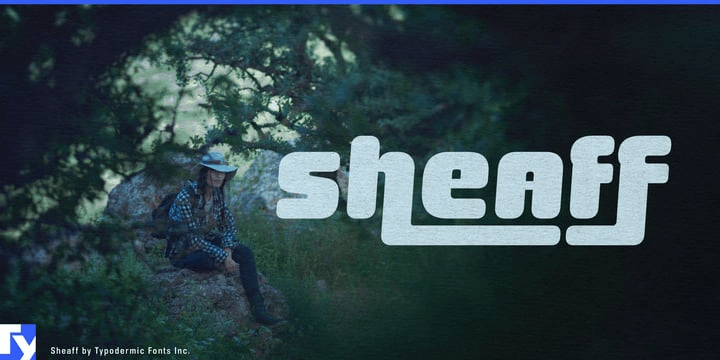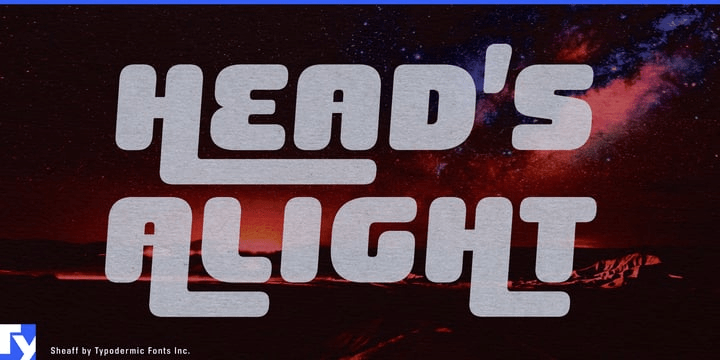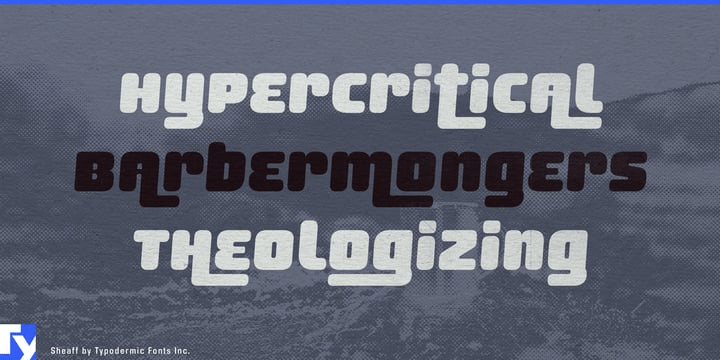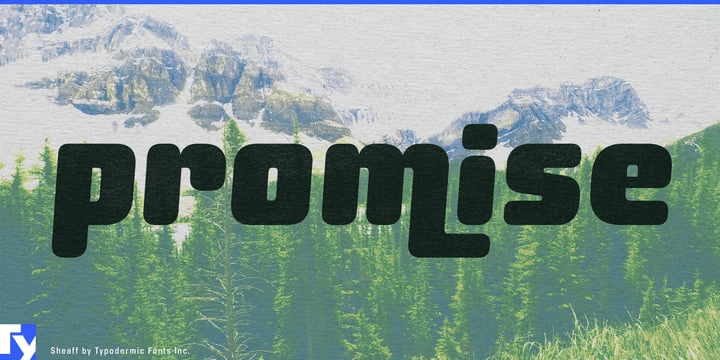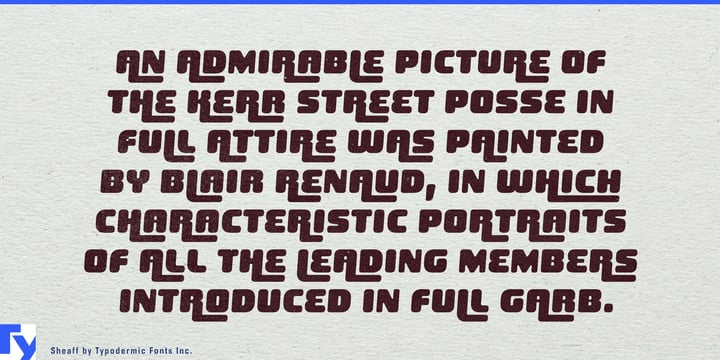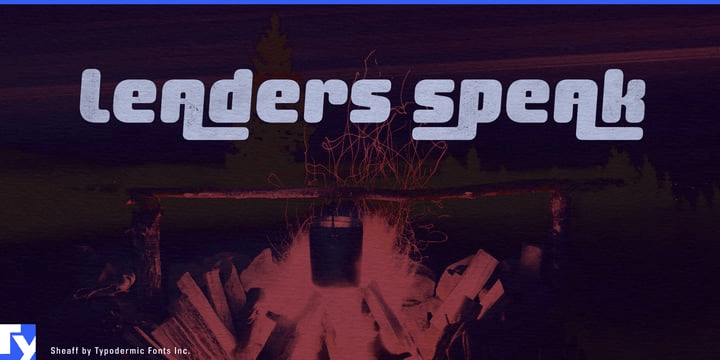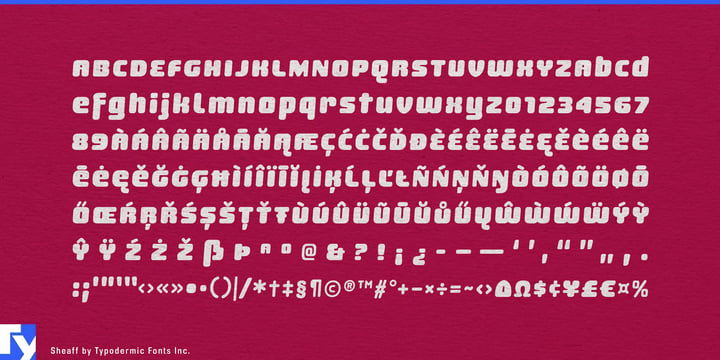
Sheaff
Sheaff comes from the softer side of Y2K: glossy consumer pop, rounded plastic forms, bright packaging, and short names designed to become graphics in their own right. Its construction mixes that millennium vocabulary with interlocking display lettering, so letters can tuck together, extend, and underline themselves instead of simply sitting in a row.
That makes Sheaff particularly useful when the name is the main graphic. Product names, flavor names, collection names, toy-line names, and model names can become compact wordmark-like shapes without requiring bespoke lettering for every variation. The effect is strongest in short display text, where the connections and extensions are easy to see.
Confectionery is a natural setting. Chewing gum, gummies, fruit chews, taffy, marshmallow products, and other soft candy already share Sheaff’s inflated, brightly colored visual world. A master brand can dominate a pouch or carton, while flavor names, seasonal editions, and collaborations use the same interlocking vocabulary across wrappers, resealable bags, sharing packs, shelf displays, vending graphics, and launch campaigns.
Beauty and personal care offer a similar opportunity. Lip gloss, lip oil, tinted balm, nail collections, body mist, bath products, temporary hair color, and pop-oriented styling products often depend on short names, glossy packaging, translucent materials, and frequent color or scent variations. Sheaff can carry a product name across a tube or carton, become the title of a seasonal collection, or anchor retail displays and campaign graphics.
Toys and play equipment give the same shapes an even more literal physical context. Doll lines, collectible figures, slime and sensory toys, playsets, balance bikes, tricycles, scooters, ride-on cars, plastic slides, playhouses, water tables, and splash toys all inhabit a world of molded plastic, inflated forms, bright color, and invented product names. Sheaff can move from packaging onto frame decals, molded badges, stickers, wheel covers, and graphics applied directly to the product.
Sheaff arrived when the soft-plastic side of Y2K design was already slipping out of fashion. Seen from the late 2020s, that timing has become part of its usefulness: it carries the bubblegum-pop consumer aesthetic of the period without defaulting to cyber nostalgia, while its interlocking construction gives that reference a practical job.